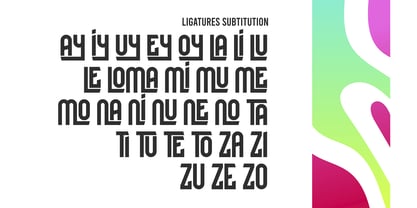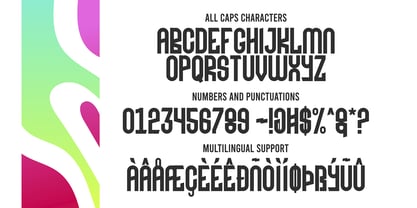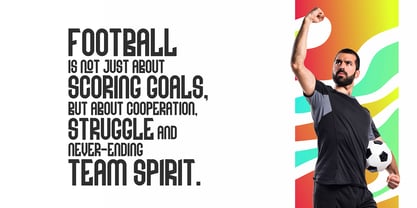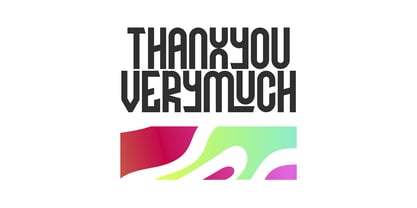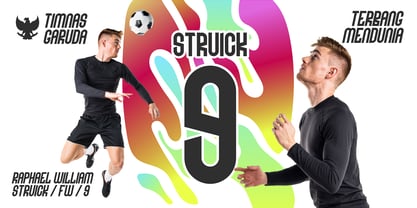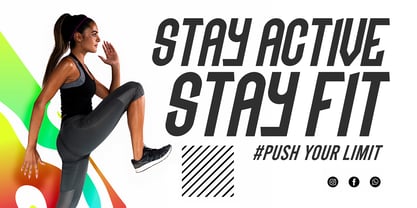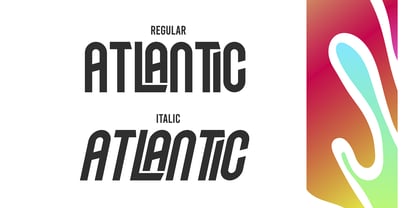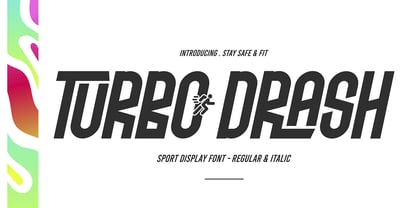
Turbo Drash
by Figuree Studio
The Turbo Drash Font Family was designed by Icep Anwar Fadhil and published by Figuree Studio. Turbo Drash contains 2 styles and family package options. More about this family
Turbo Drash is the ultimate sport-inspired display font designed to deliver high-energy and dynamic visuals. With its sleek lines and bold presence, this font is perfect for any project that needs speed, power, and precision.
🏎️ Dynamic Styles: Available in regular and italic styles, Turbo Drash adapts seamlessly to any design need, from sports branding to adrenaline-fueled posters.
✍️ Awesome Ligatures: Featuring unique and stylish ligatures, this font adds a touch of modern sophistication, ensuring your typography stands out with personality and flair.
High-Impact Design: The bold, angular shapes of Turbo Drash exude strength and movement, making it ideal for logos, headlines, and high-performance designs.
Whether you're creating for the racetrack, the gym, or anything in between, Turbo Drash is your go-to choice for bold, fast-paced designs that leave a lasting impression.